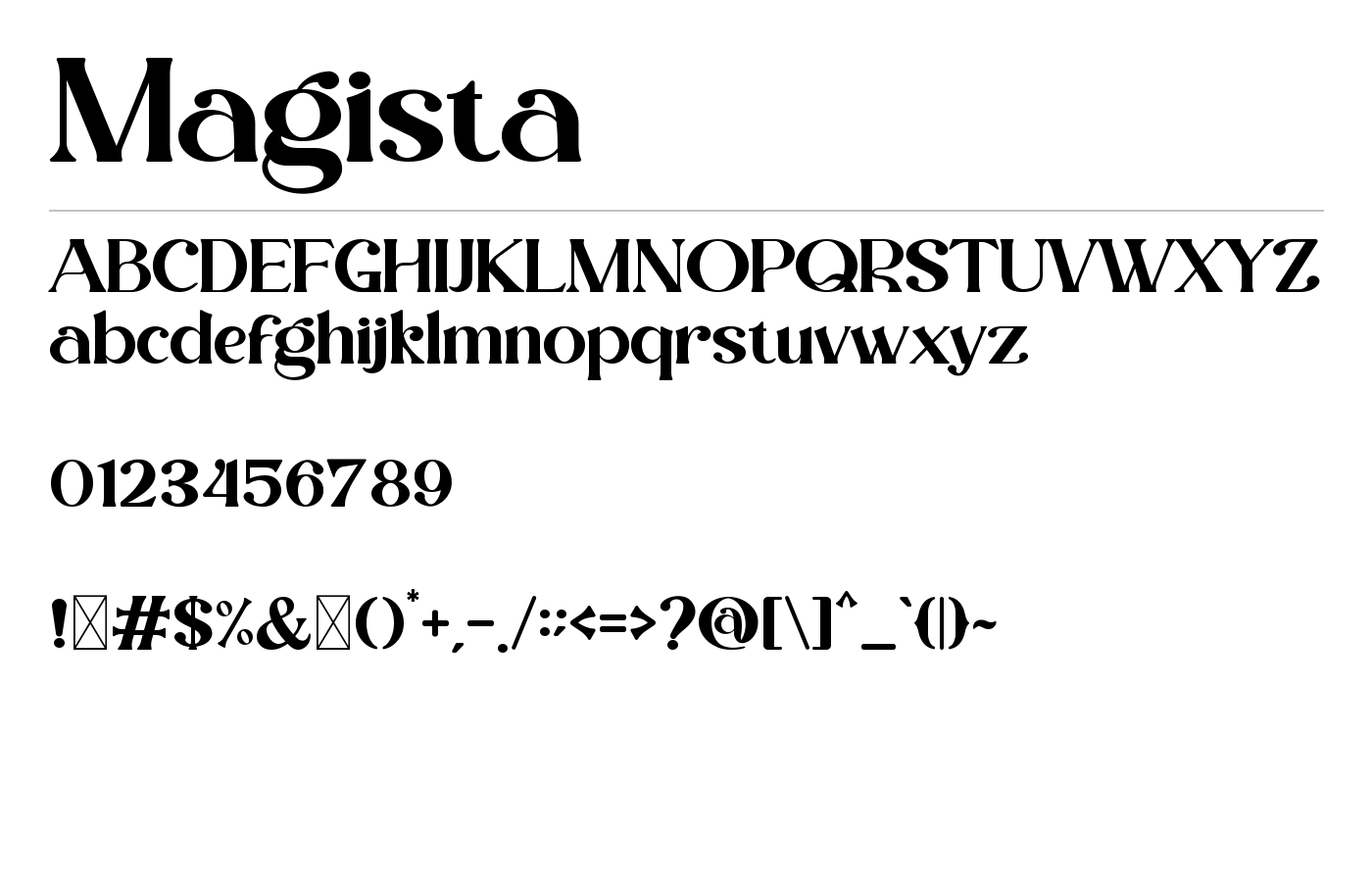
Magista is an elegant serif font that combines high contrast strokes with distinct, playful curves, creating a refined yet approachable look. Its unique letterforms and moderate x-height make it ideal for luxury branding, editorial headlines, and sophisticated packaging where a touch of personality and style is desired.
Magista Font
About Magista Font
| Designer | Rony Rizki Jaya |